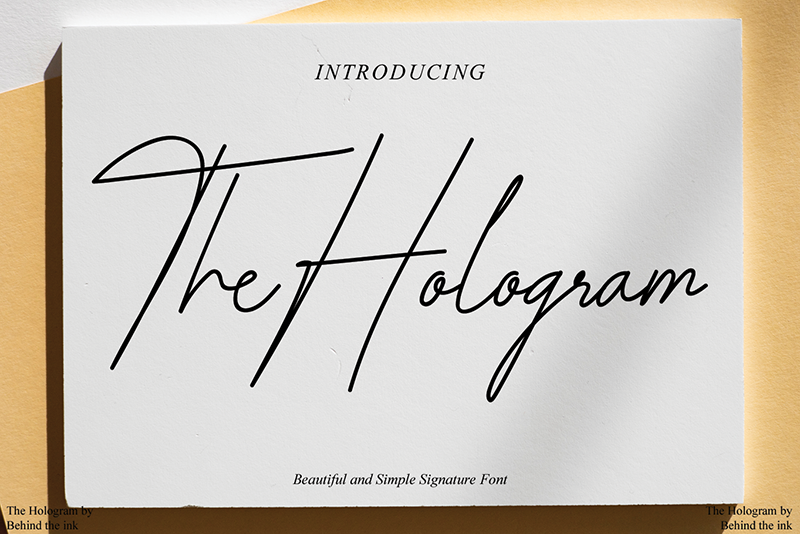
Preview and download The Hologram Font. Created by Behind the Ink in Script Handwritten styles with Free for personal use license.
The Hologram is a thin lettered handwritten font, masterfully designed to become a true favorite. It maintains its classy calligraphic influences while feeling contemporary and fresh. Attention : The Hologram handwriting Font is prohibited to use this font for commercial purposes or for profit without the permission of the author/admin, without being known to use this font without permission, will be subject to sanctions 5x the specified price. This font is used only for demos (Demo license) If you want to use this font for commercial use please contact email: luluksurotul123@gmail.com or click the link below: https://www.creativefabrica.com/product/the-hologram/ref/698281/ If you want to see more other fonts, please click: https://www.creativefabrica.com/designer/behind-the-ink/ref/698281/ Any donations are very appreciated. thanks. |